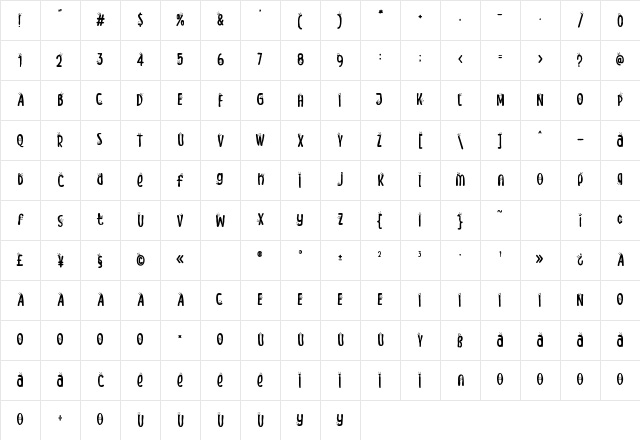
Complete Meow Zilla Cat 6 Regular glyph index. Displaying only characters natively supported by Meow Zilla Cat 6 Regular font.
Meow Zilla Cat 6 is a composed and adaptable typeface that performs quietly and consistently across a wide range of design contexts.